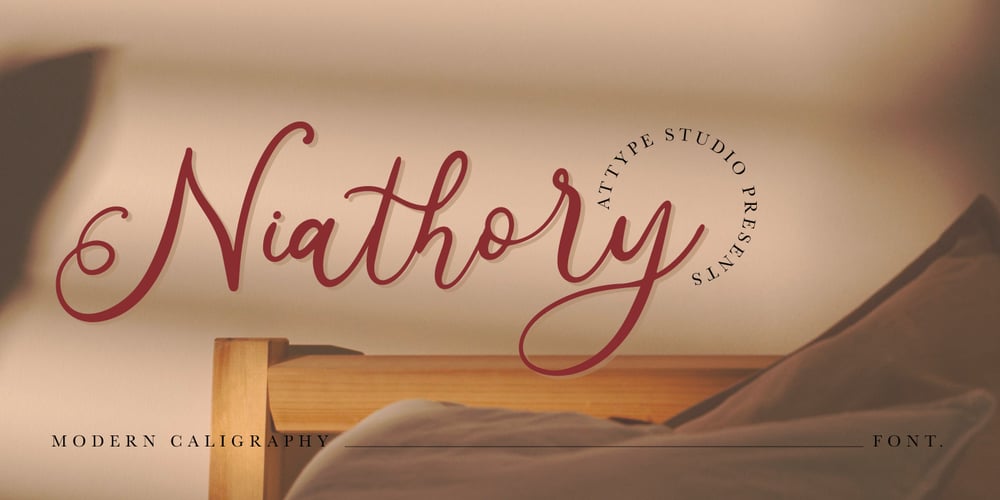
Niathory Font Family was designed by Fadli Ramadhan Iskandar and published by Attype Studio. Niathory contains 1 styles and family package options. Niathory is a Modern Calligraphy Font perfect for your wedding dream. Combine Niathory with stylistic set to create amazing script font for wedding!Niathory is perfect for branding, logo, invitation, quotes, apparel design, product packaging, merchandise, game titles, cute style design, Book/Cover Title and more.What’s Included :- Ligature- Stylistic Set character- Multilingual Support —Hope you enjoy with our font!Attype Studio